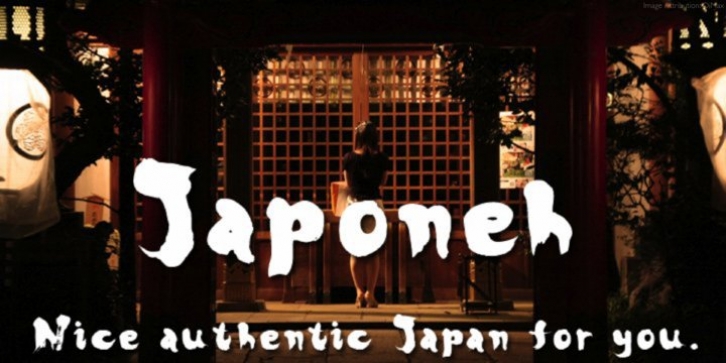
Japoneh was designed by Natsuko Hayashida and published by Okaycat. Japoneh contains 1 style.
Japoneh is a dynamic font set in all bold heavy brushed characters. It practically jumps off the page with the action of these fluid strokes!
Japoneh is extended, containing West European diacritics & ligatures, making it suitable for multilingual environments & publications.